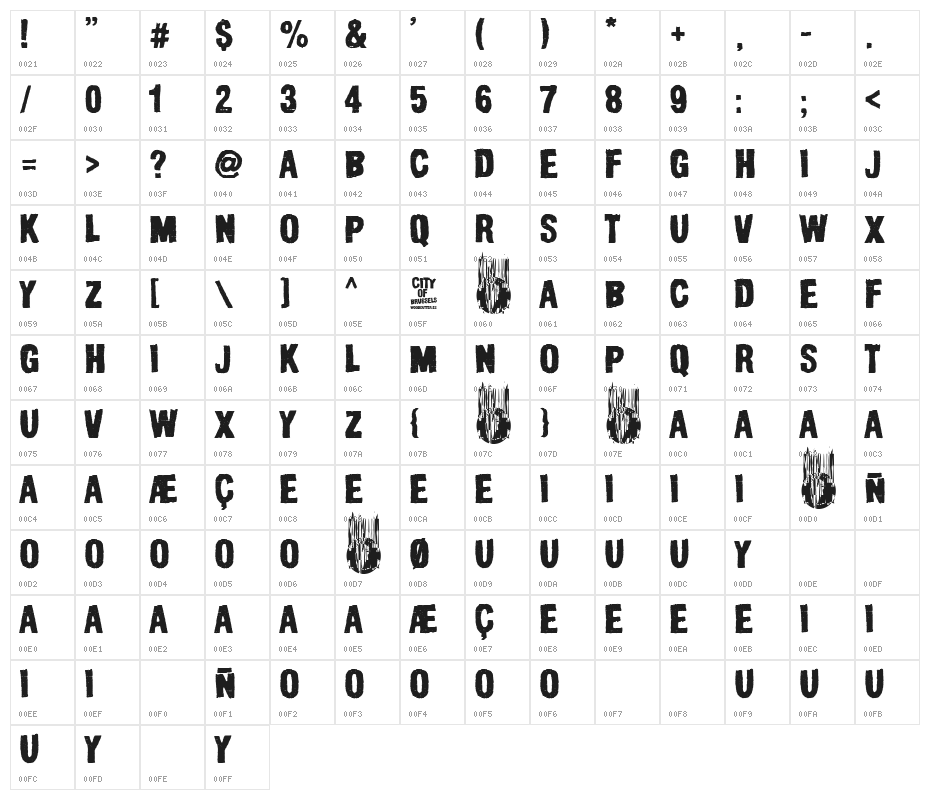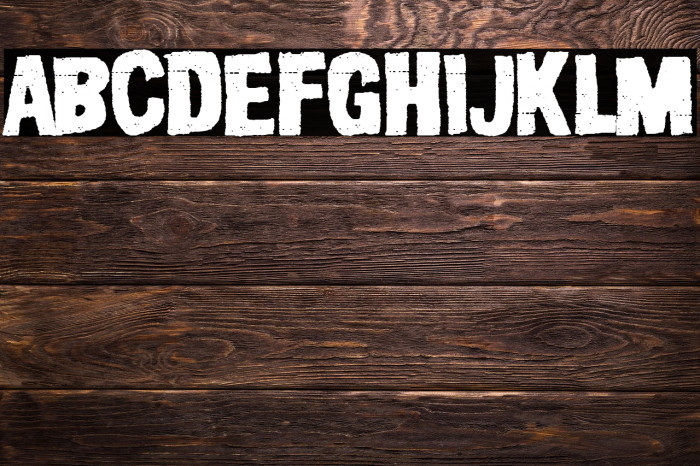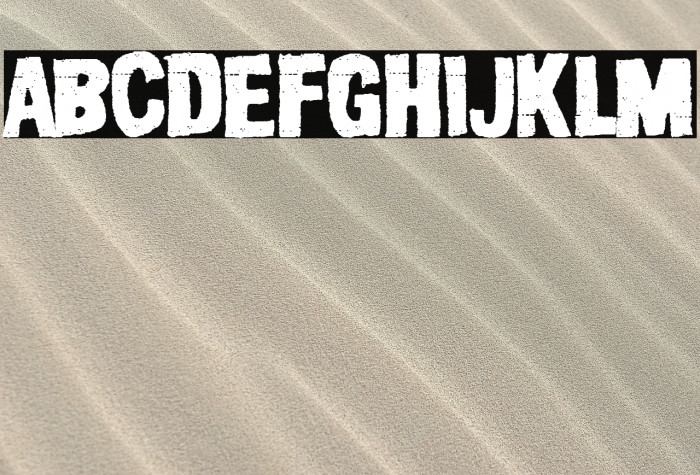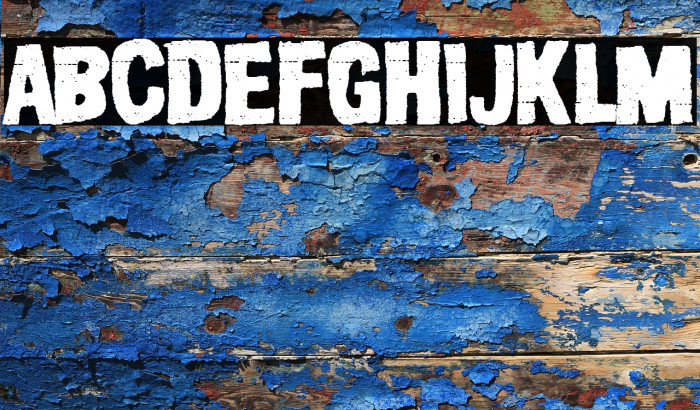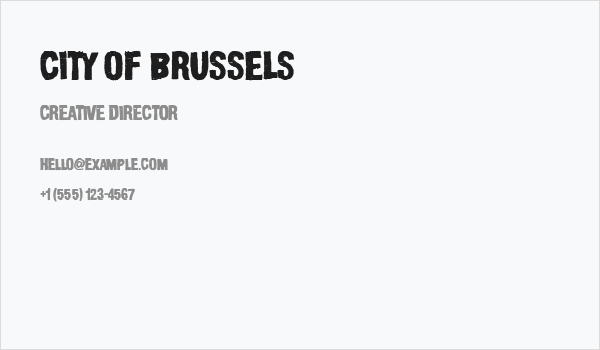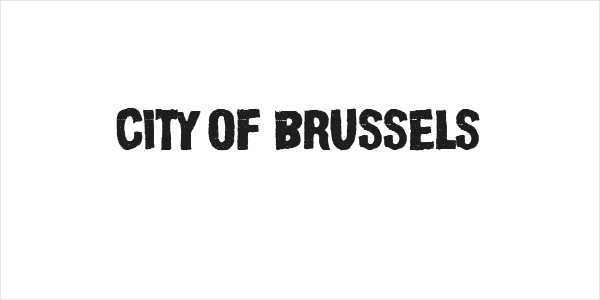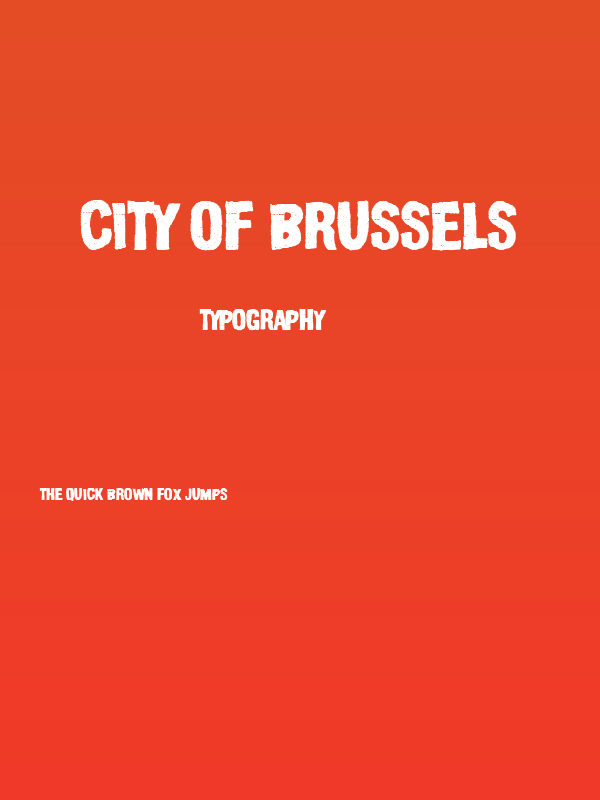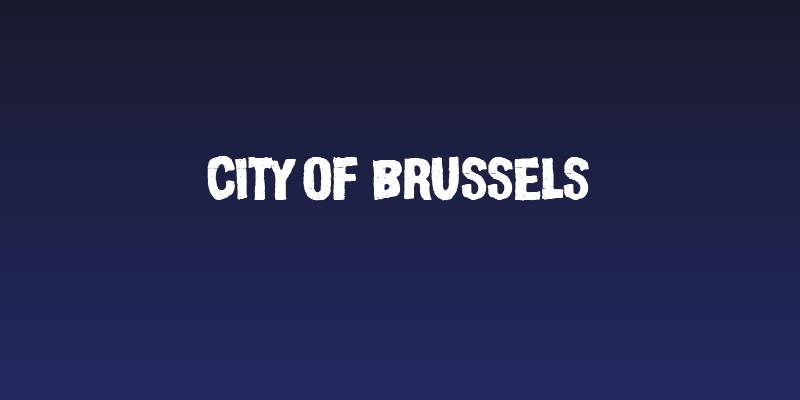
City of Brussels Font
City of Brussels Description
This font features a bold, distressed style with a textured appearance, giving it a rugged and vintage feel. The uppercase letters are prominent and slightly irregular, adding to the handcrafted look. The numbers and special characters maintain the same distressed texture, ensuring consistency across all glyphs. The font's boldness and unique texture make it stand out, ideal for projects that require a strong visual impact. Its rough edges and uneven strokes contribute to its distinctive character, making it suitable for designs that aim to convey a sense of authenticity and rawness.